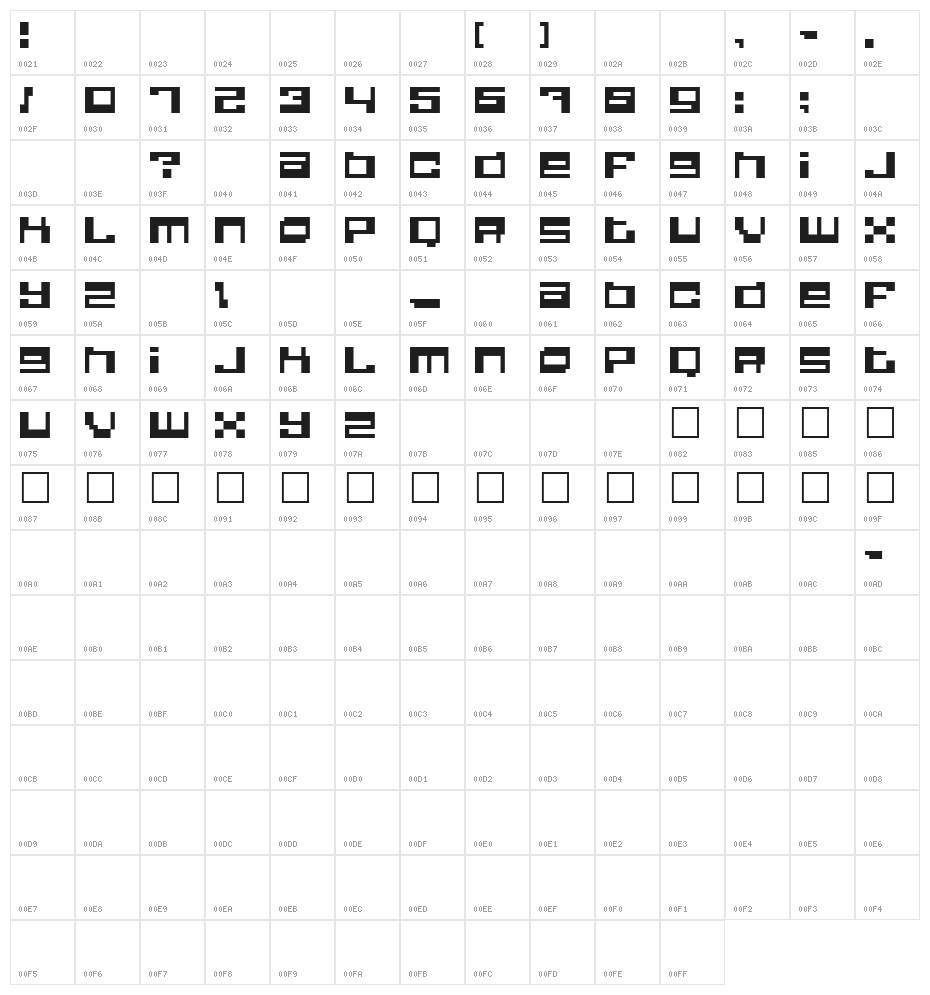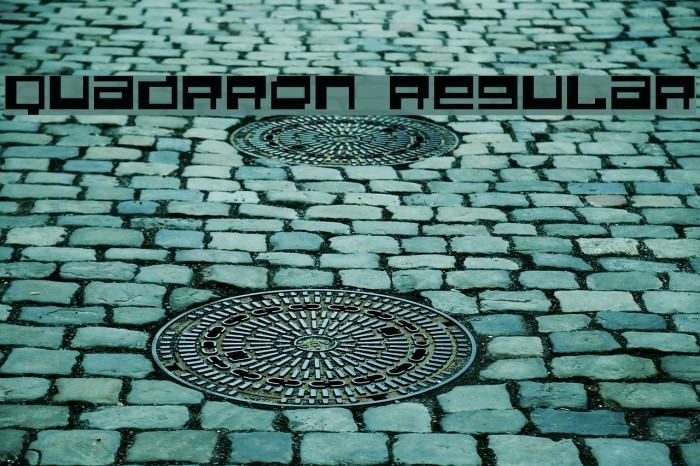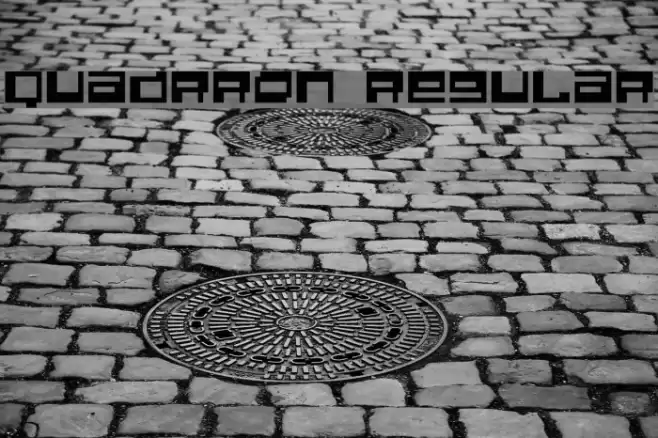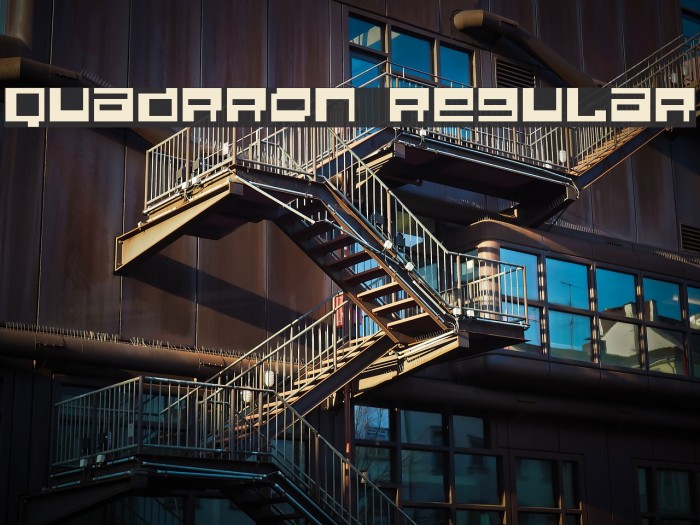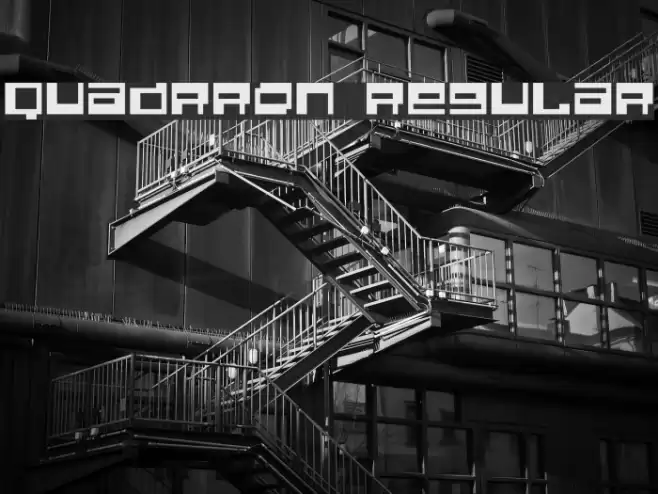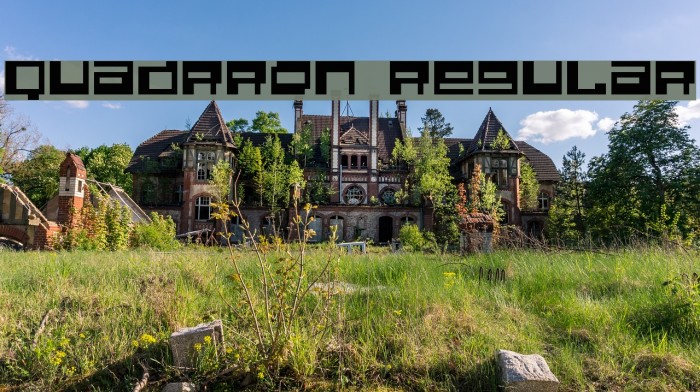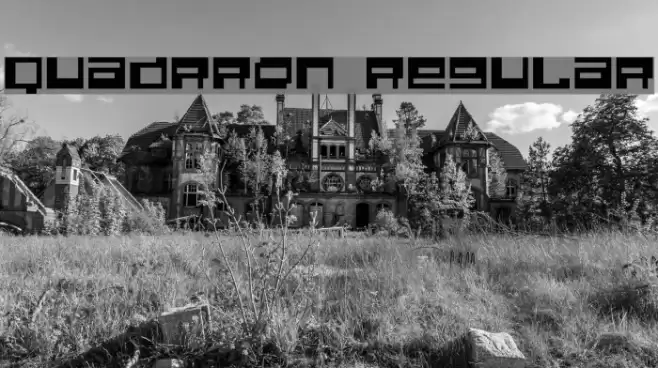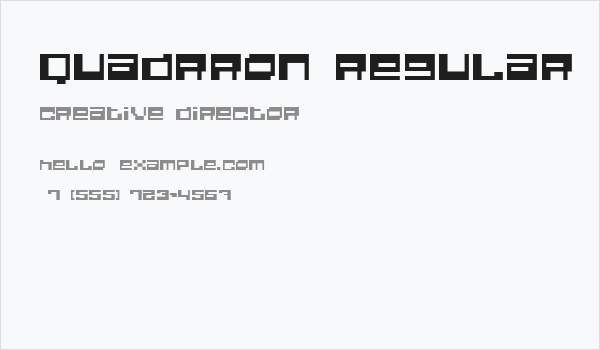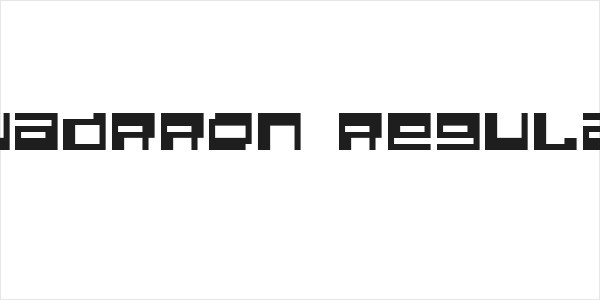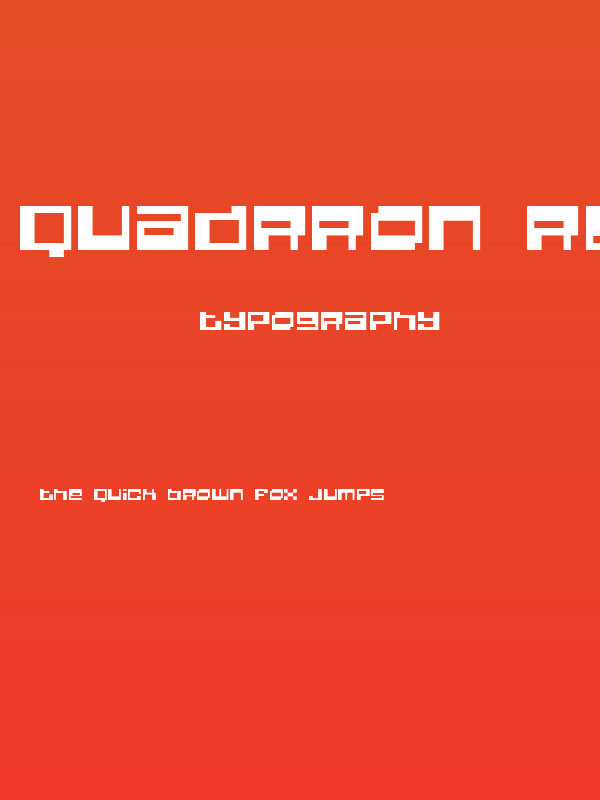
Quadrron Regular Font
Quadrron Regular Description
This font features a bold, geometric design with a distinctly digital aesthetic. Each character is constructed with sharp, angular lines, giving it a futuristic and tech-inspired look. The uniformity in height and width across characters contributes to a cohesive and structured appearance. The font's blocky nature makes it highly legible, even at smaller sizes, while its unique style ensures it stands out in any design. The consistent stroke width throughout the characters provides a balanced and harmonious feel, making it suitable for modern and innovative projects.
| Proposed Projects | Ideal for tech-related branding, digital interfaces, video game design, and modern advertising. |